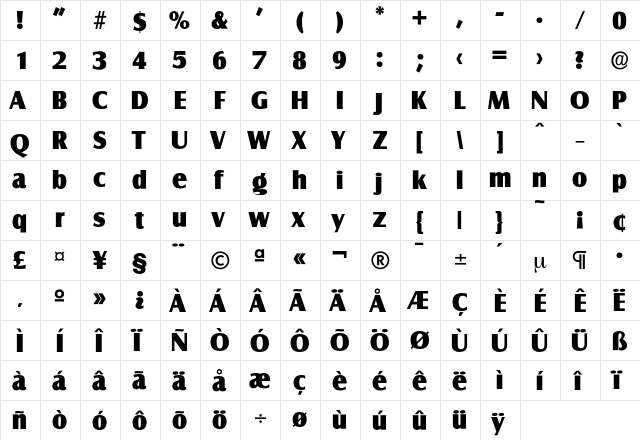
Salzburg-ExtraBold Regular
Design Context for Salzburg-ExtraBold Typeface
Salzburg-ExtraBold offers clean, dependable letterforms without strong stylistic allegiance, making it a practical choice for designers who need flexibility. The heavy weight commands attention and anchors typographic hierarchies.
Pro Tip: Pair Salzburg-ExtraBold with a font of contrasting weight or personality to build a more expressive typographic hierarchy.